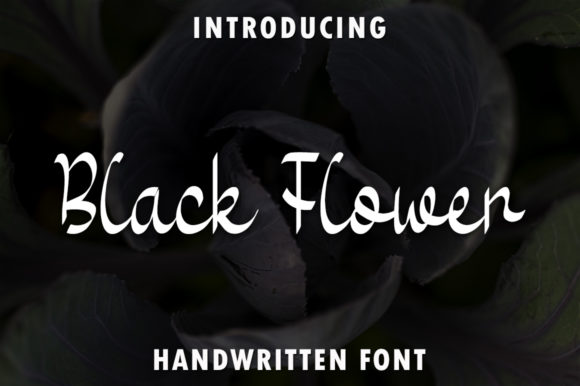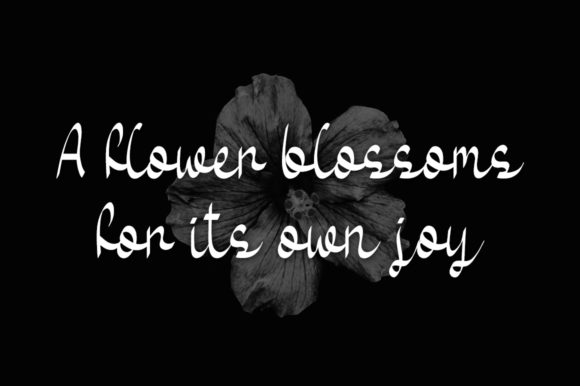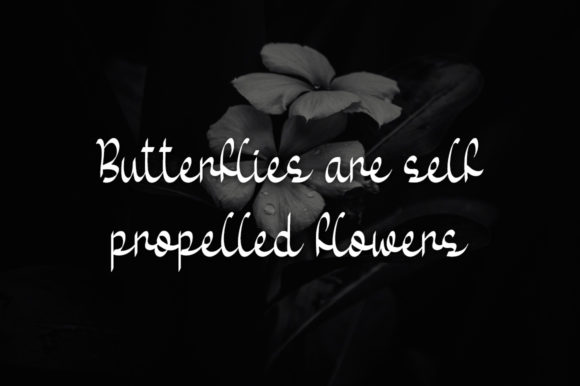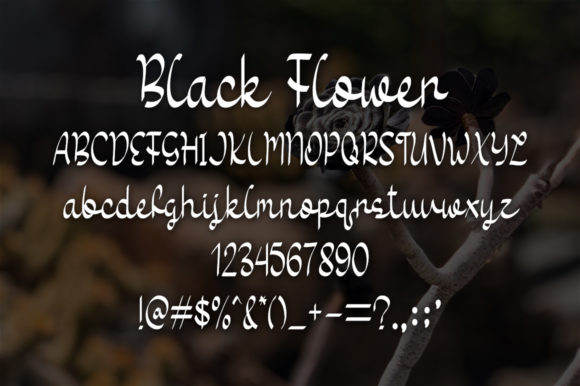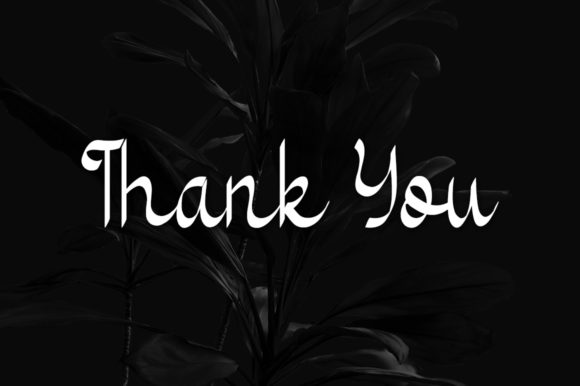
Black Flower Font
About Black Flower Font
Black Flower is a sweet, all round and flexible handwritten font. Warm, romantic and jolly, this font will turn each of your project ideas into real works of art. Have fun with this beautiful font and explore its endless variations.